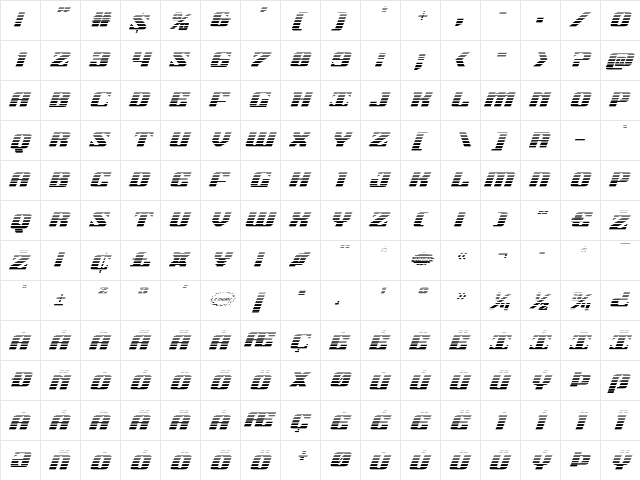
21 Gun Salute Gradient Italic Italic
Design Context for 21 Gun Salute Gradient Italic Typeface
21 Gun Salute Gradient Italic is a composed and adaptable typeface that performs quietly and consistently across a wide range of design contexts. The slanted form adds forward momentum and visual energy.